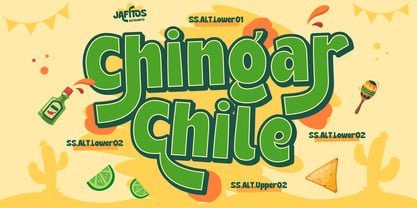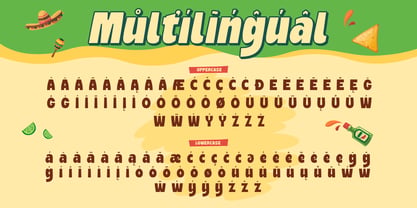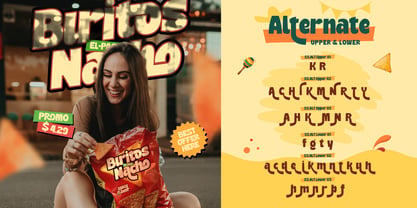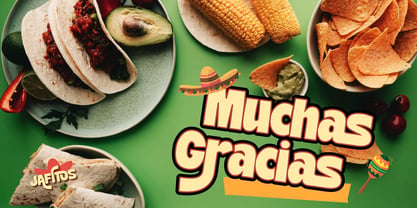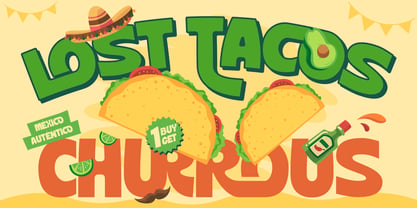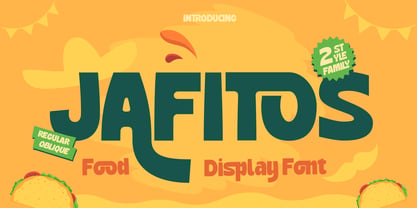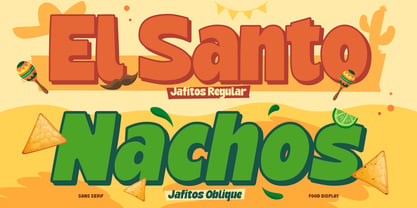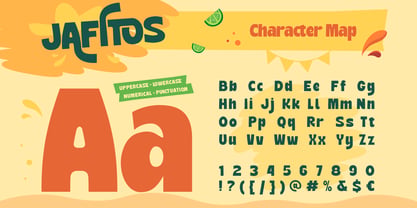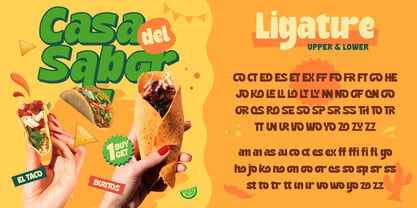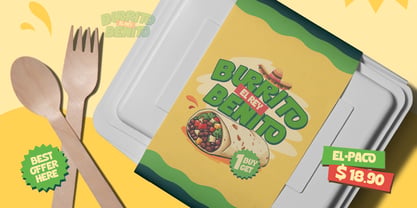
Jafitos
The Jafitos Font Family was designed by Eric Kurniawan and published by Burntilldead. Jafitos contains 2 styles and family package options. More about this family
Meet Jafitos, a fun and quirky sans-serif display font that brings a cheerful vibe to any design! With its bold and playful look, Jafitos is perfect for branding, packaging, posters, logos, social media, and so much more. Whether you're working on a vibrant food brand, a trendy fashion campaign, or eye-catching merchandise, Jafitos adds a lively touch to your designs.
This font comes in two styles – Regular and Oblique – giving you the flexibility to create dynamic and engaging visuals. Plus, it includes alternate characters and ligatures, making your text even more unique and expressive! Let your creativity shine with Jafitos!
Features:
• A - Z set (Uppercase & Lowercase)
• Number
• Punctuation
• Alternate
• Ligature
• Multilingual